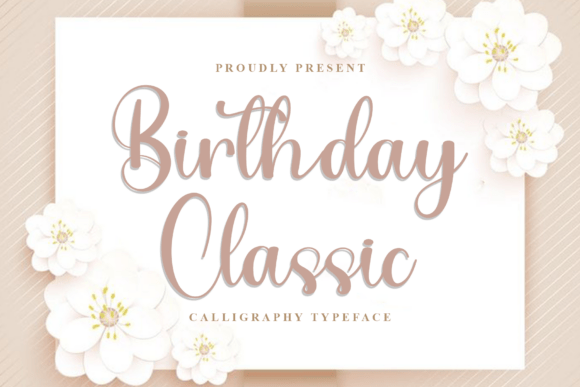
Make Every Birthday Moment Unforgettable with the Birthday Classic Font
Have you ever been brainstorming ideas for a special birthday celebration and felt the need for a touch of elegance and sophistication? You’re not alone! We’ve all been there, searching for the perfect visual element to capture the essence of the moment. For designers and creatives, finding the right font can be a game-changer. That’s where the Birthday Classic Font comes in – a beautiful calligraphy typeface designed to evoke the feeling of a hand-penned letter.
With its delicate, looping swashes and upright stance, the Birthday Classic Font is the perfect choice for projects that require a soft, romantic visual rhythm. Whether you’re working on wedding invitations, greeting cards, or luxury event stationery, this font is an essential tool for designers looking to add a touch of traditional beauty and personal warmth. By incorporating the Birthday Classic Font into your designs, you’ll be able to create stunning visuals that leave a lasting impression on your audience.
Birthday Classic Font Key Features
- Unique Characteristics: The Birthday Classic Font features a distinctive, hand-drawn design with intricate details and flourishes, making it perfect for adding a touch of whimsy to designs.
- Legibility: Despite its decorative appearance, the font remains highly legible, even at smaller sizes, making it suitable for a wide range of applications, from invitations to signage.
Birthday Classic Font Review
Overall, I think the Birthday Classic Font is a charming addition to any design project. ✨ It has a classic feel that evokes a sense of nostalgia and timelessness. The font is legible and easy to read, making it a great choice for body text and headings.
- ✨ The font’s classic aesthetic is perfect for designs that require a sense of tradition or heritage.
- ✨ The font is highly customizable, allowing designers to adjust the style and layout to suit their needs.
- ✨ The font is available in a range of weights and styles, making it easy to find the perfect match for your design.
However, there are a few limitations to keep in mind. ⚠️ The font may not be suitable for modern or minimalist designs, as its classic feel can come across as dated or clichéd. Additionally, the font may not be as effective at very small font sizes, as the characters can become difficult to read.
Overall, I think the Birthday Classic Font is a solid choice for designers who need a classic, timeless feel for their projects. While it may not be the best fit for every design, it’s a versatile and customizable option that can add a touch of elegance and sophistication to any project.
Tips for Getting the Most Out of Birthday Classic Font
Use Birthday Classic Font for creating birthday invitations, party decorations, and other celebratory materials. This font is perfect for adding a touch of nostalgia and whimsy to your designs.
Birthday Classic Font is commonly used for:
- Birthday invitations
- Party decorations
- Custom gift tags
- Personalized party banners
Playfair Display is a luxurious and elegant font perfect for high-end branding, invitations, and special occasions. Its refined and intricate details make it ideal for creating a sophisticated and luxurious atmosphere.
Compared to Birthday Classic Font, Playfair Display has a more formal and traditional feel, making it suitable for upscale events and luxury brands. While Birthday Classic Font is more casual and playful, Playfair Display exudes sophistication and elegance.